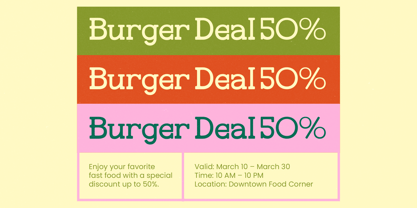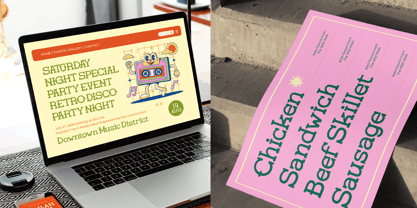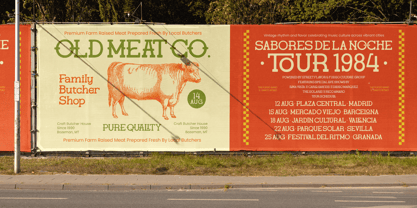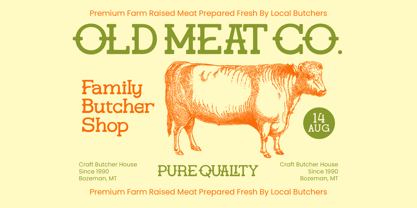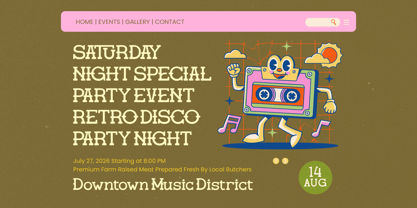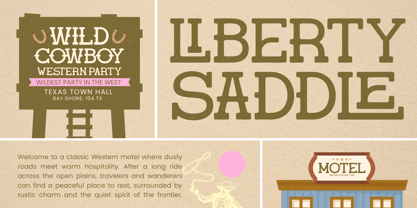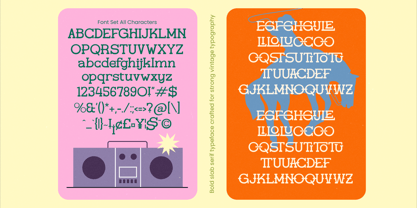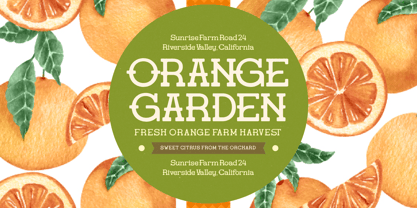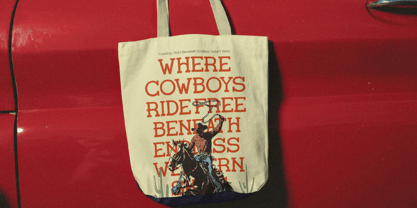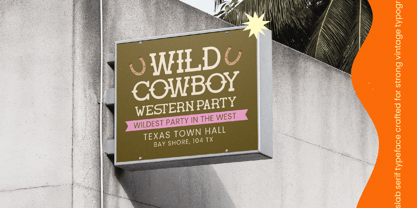
Gatius Rodeo
Gatius Rodeo is a bold vintage slab serif font inspired by classic western typography and retro signage. The design combines strong slab serif structures with rounded vintage terminals, creating a powerful headline style that immediately captures attention. This typeface delivers a nostalgic western atmosphere while maintaining clean readability for modern design projects. Its sturdy letterforms and balanced proportions make it ideal for display use, especially when creating bold titles, branding elements, and retro themed graphics. Gatius Rodeo includes a collection of ligatures and alternate characters that add flexibility and character to your typography. These stylistic options help designers craft distinctive lettering compositions with a vintage personality. The font works perfectly for branding projects that require strong visual impact and a classic western aesthetic.